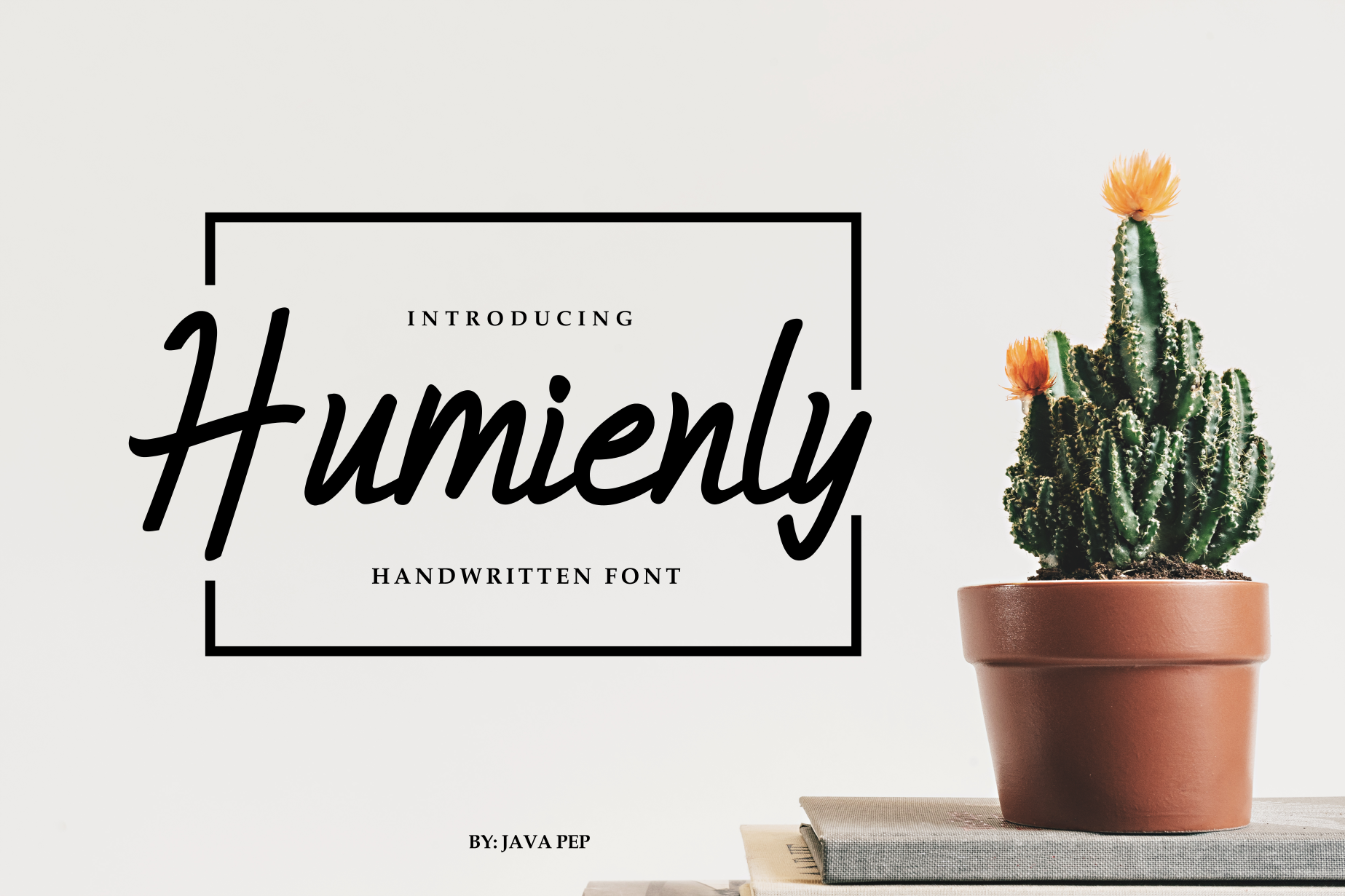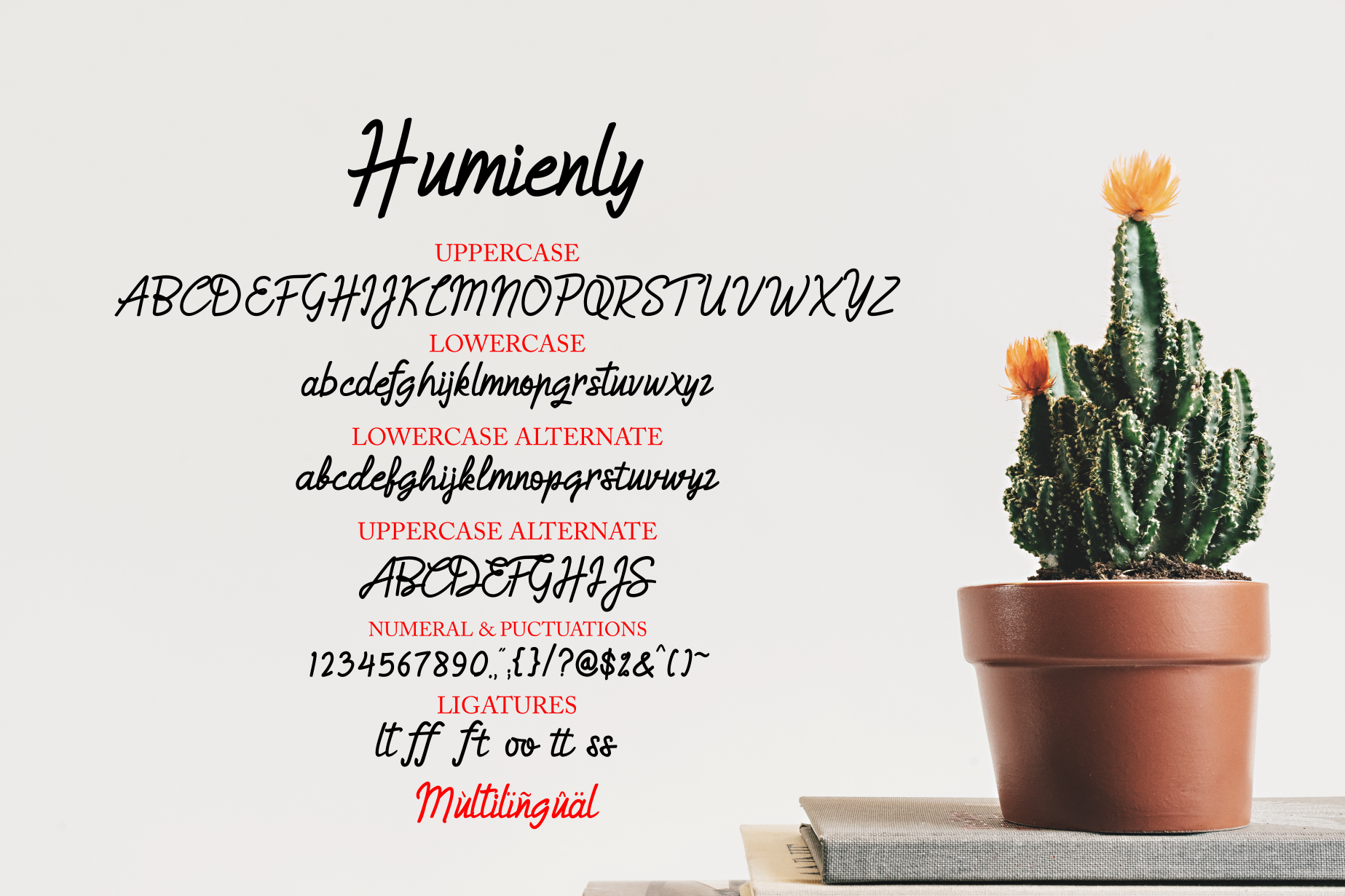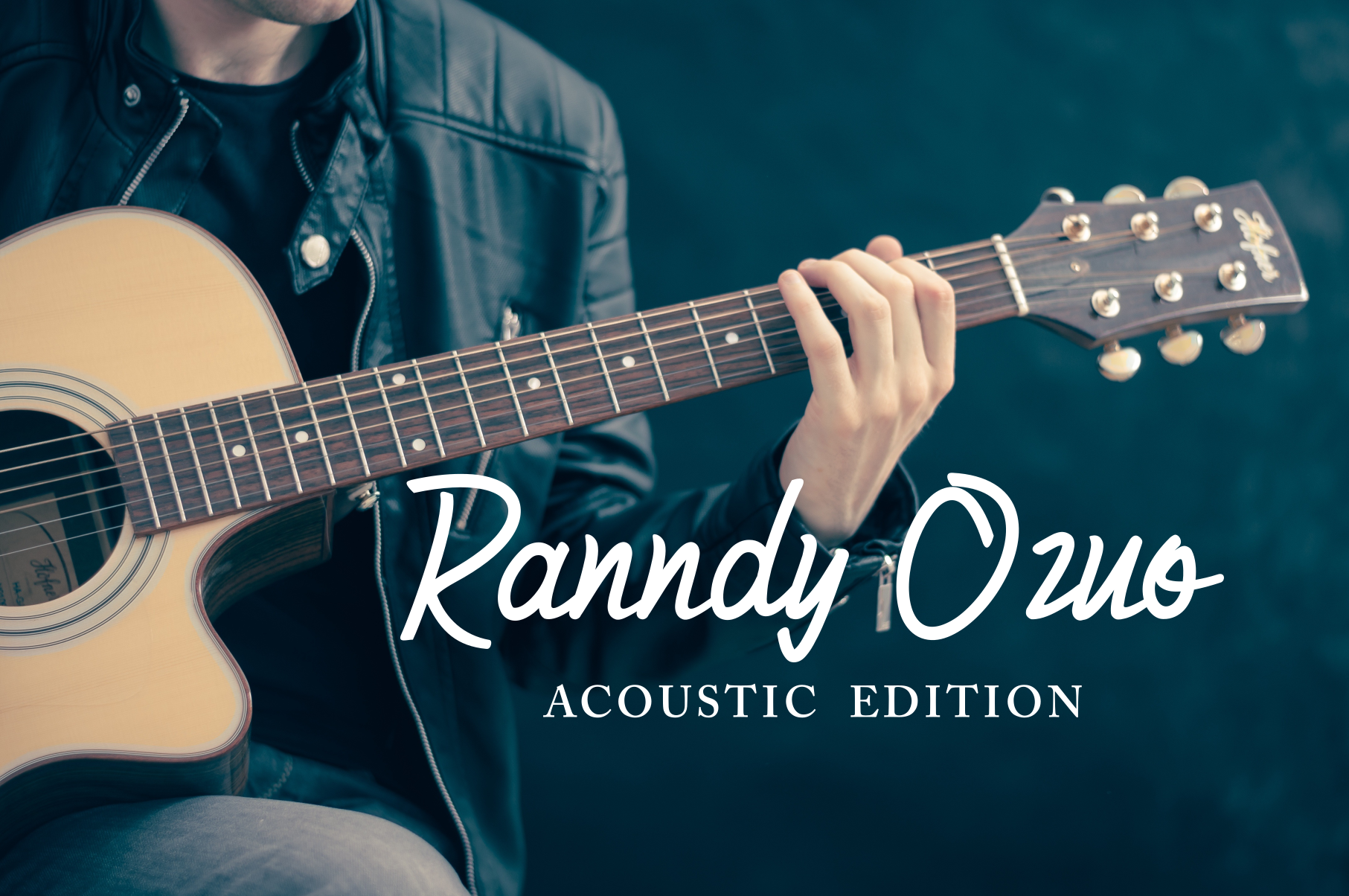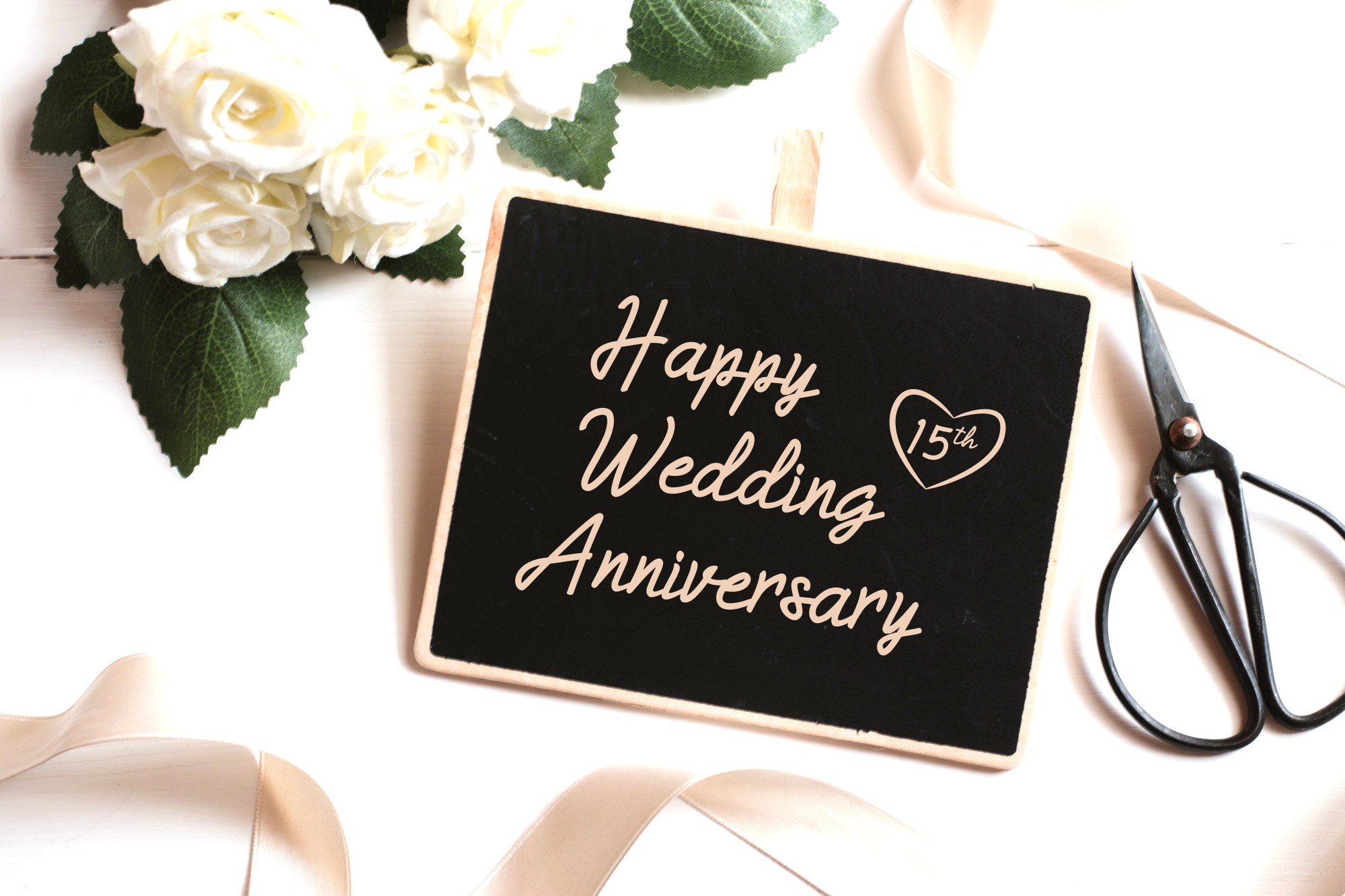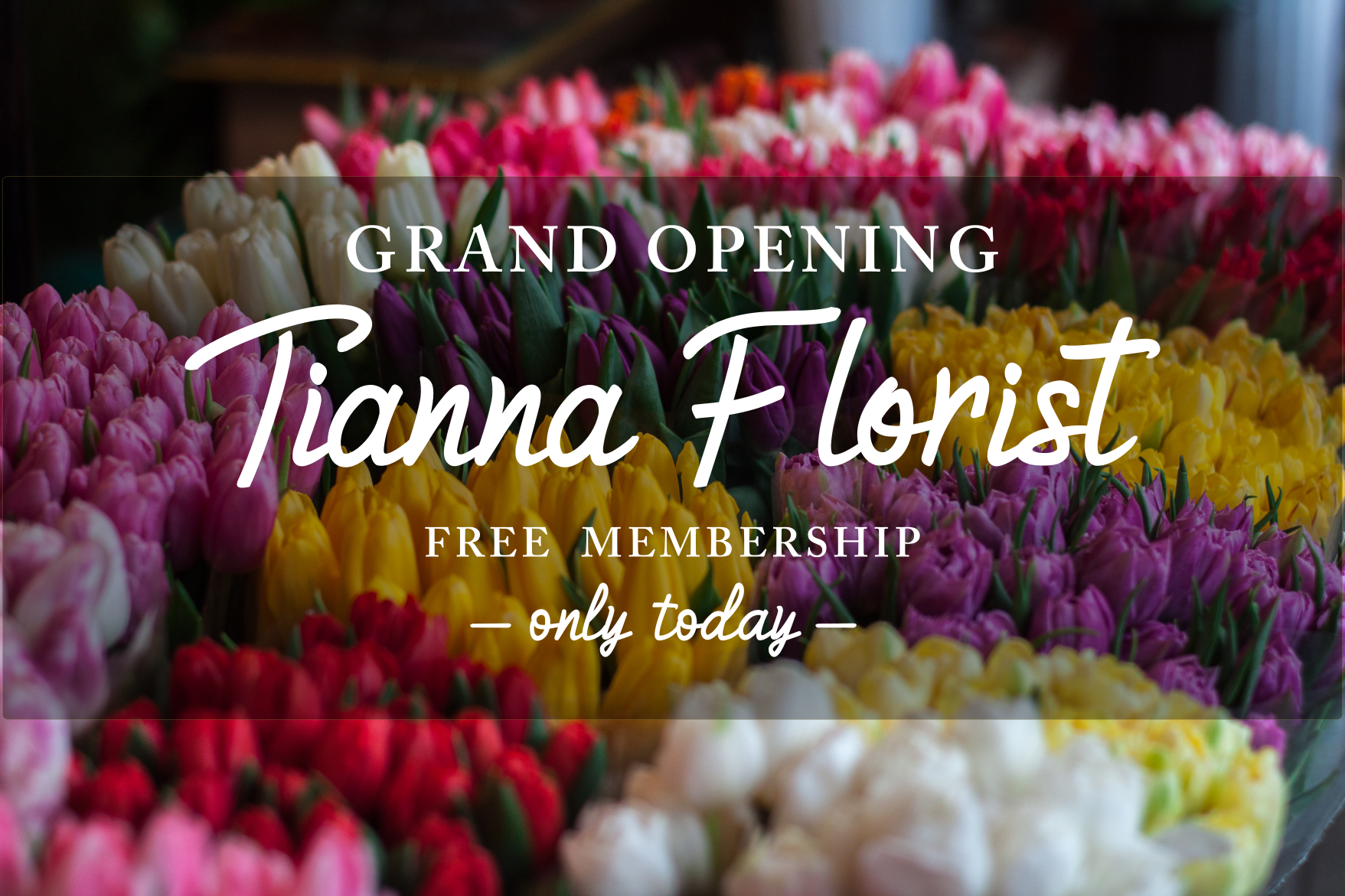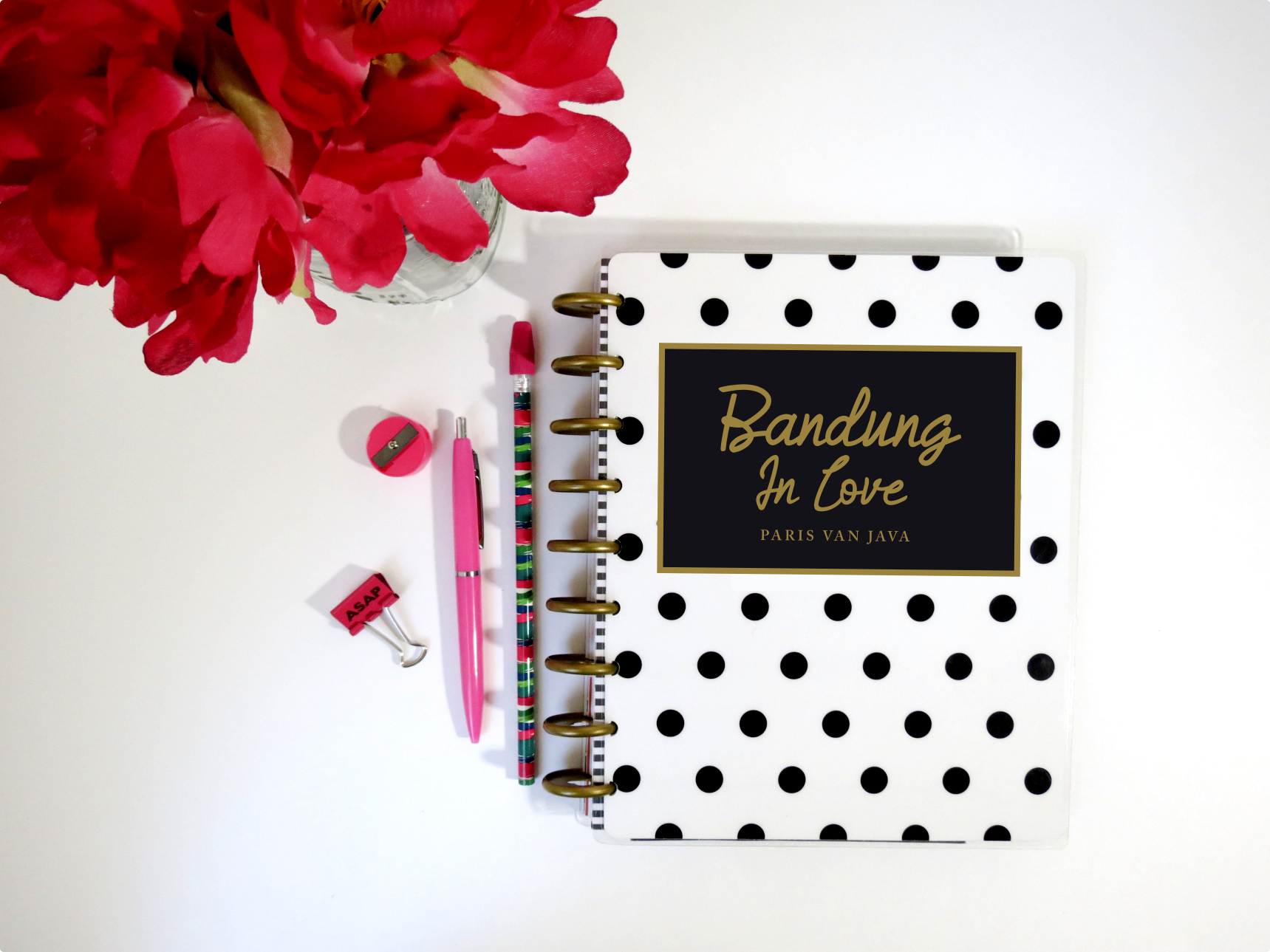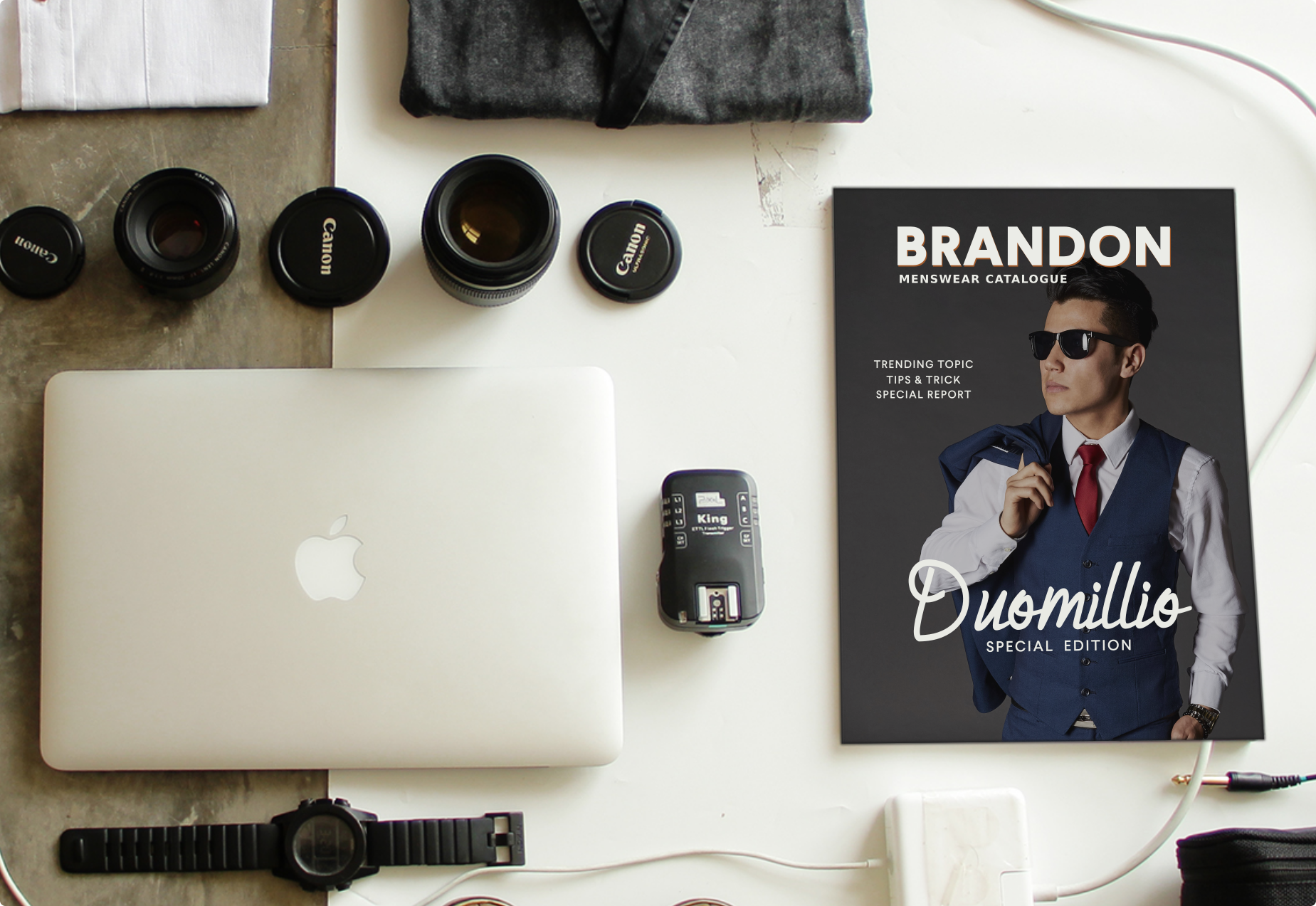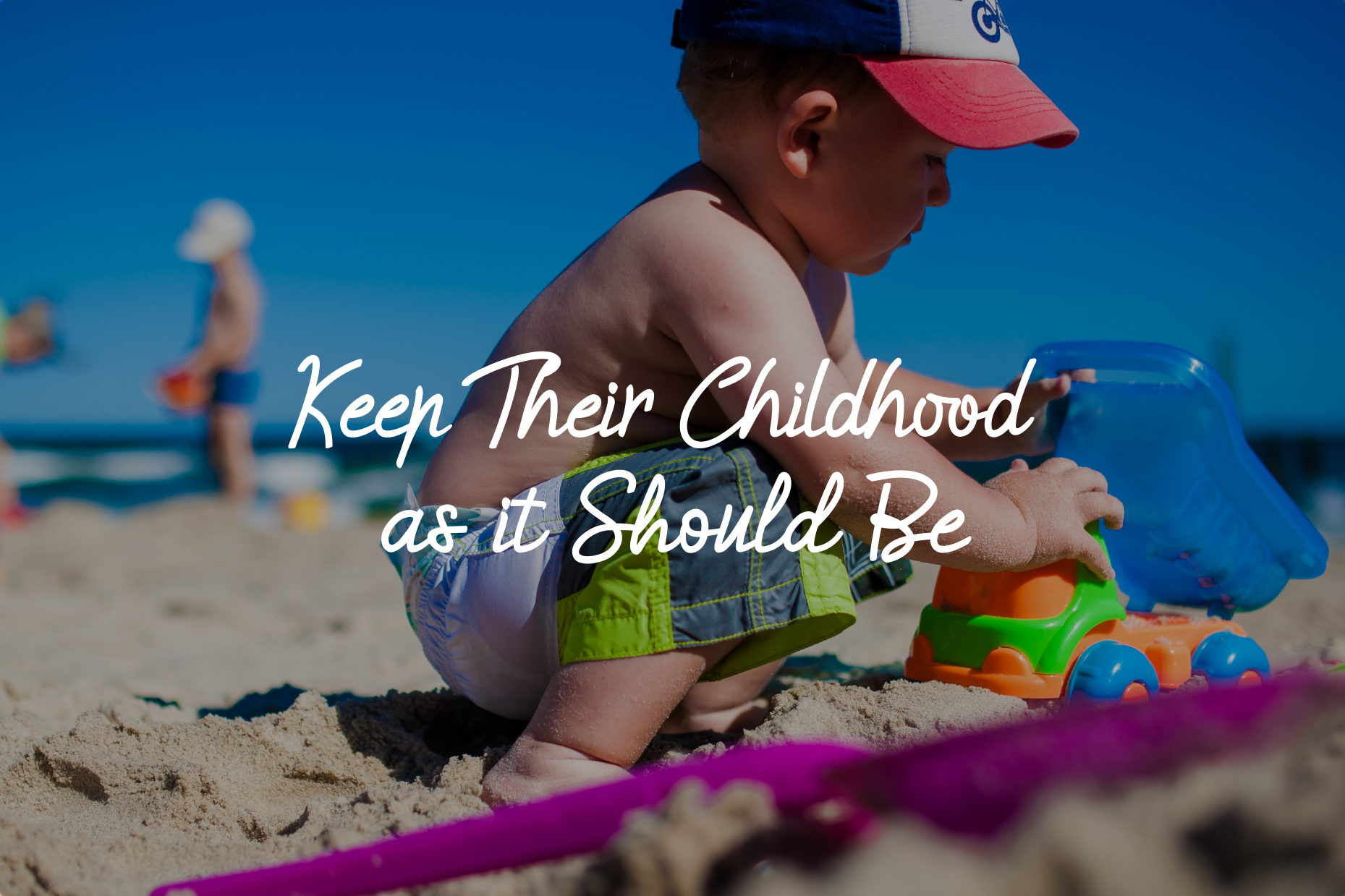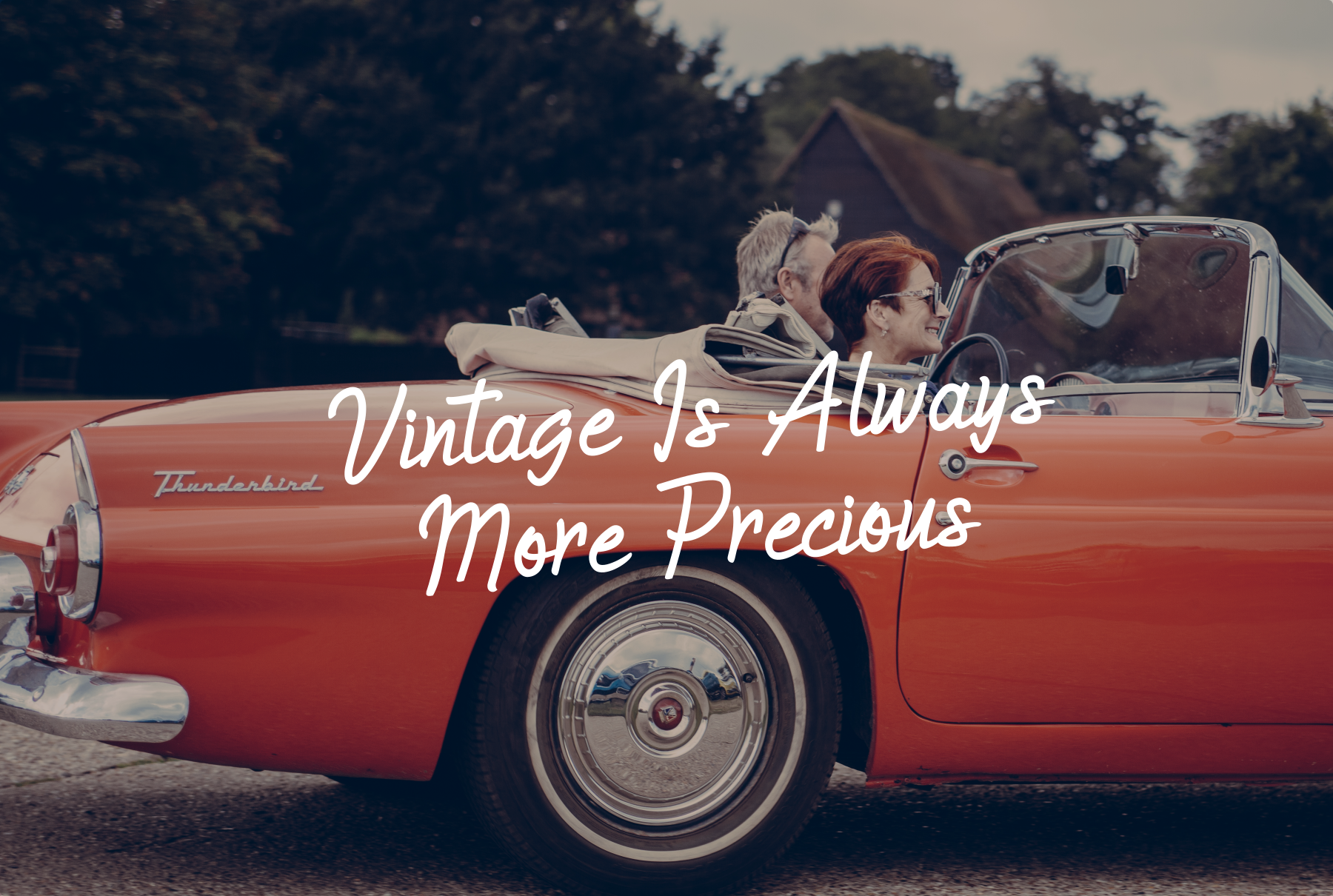
Humienly Font
About Humienly Font
Humienly is a handwritten font that is elegant and masculine, yet also retains a feminine touch. Humienly is flexible, a font that can adjust to your needs and goals with various styles like modern, classic, masculine, romantic, etc.